“木 (Ki)” That Cannot Be Copy-Pasted 02: “Width and Height”
“木 (Ki)” becomes vertically long in ki-hen, such as “村, 榑, 樹,” etc. The width of “木 (Ki)” is tuned to a fine degree to match the element that comes on the right side. On the other hand, there are kanji characters “宋, 栄, 榮,” etc., that require height adjustment. When matching the covering element, such as in “棊,” both width and height are adjusted. Furthermore, a small “木 (Ki)” is required for kanji characters like “保, 新, 欝,” etc.
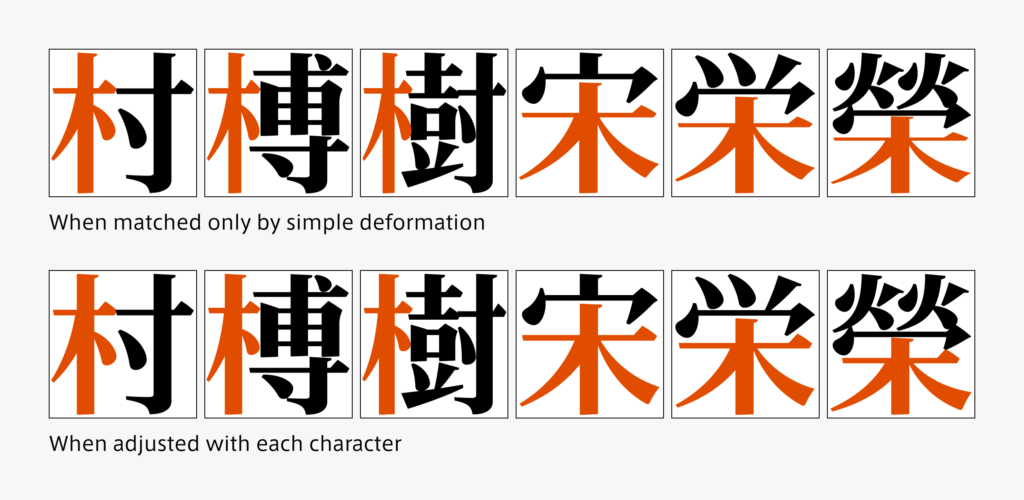
When “木 (Ki)” collides with the element to be joined together, a part of the stroke may be cut to avoid congestion. As described, various shapes for “木 (Ki)” are required in creating kanji. Correspondence only by simple deformation may lead to distortion in structure, unmatched thickness, or unnatural angle tips. It does not quite go well. The outline is carefully adjusted by working to match each character.